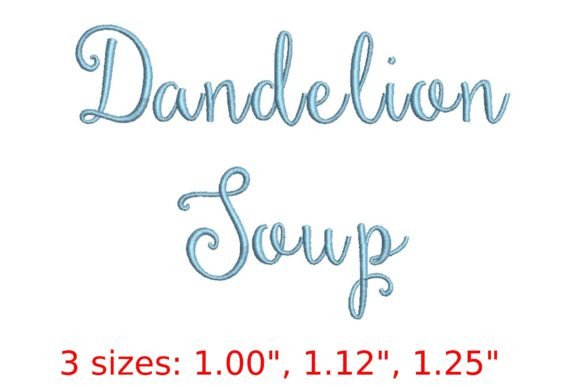
Dandelion Soup Embroidery Font
The Dandelion Soup Embroidery Font is a beautiful and versatile machine embroidery font designed to inspire creativity in your stitching projects. Inspired by the comforting and nourishing qualities of dandelion soup, this font brings a unique blend of elegance and charm to your embroidery work. Whether you're a seasoned embroiderer or just starting out, this font offers a fresh and artistic way to express yourself through needle and thread.
A Unique Blend of Beauty and Nourishment
Each letterform in the Dandelion Script embroidery font is crafted with care, featuring graceful and flowing lines that evoke the softness of dandelion petals. This design not only adds visual appeal but also carries a sense of warmth and comfort, much like the gentle flavor of dandelion soup. The font's whimsical style makes it perfect for adding a touch of personality to your projects, whether they are personal keepsakes or commercial designs.
Seamless Integration with Popular Machines
Where Can You Use This Font?
This font is incredibly versatile and can be used in a wide range of contexts. From personal projects like custom towels, aprons, and pillowcases to professional applications such as branding materials and promotional items, the Dandelion Script font has something to offer everyone. It's ideal for creating personalized gifts, adding a special touch to home decor, or even crafting meaningful messages for events and celebrations.
- Personal Projects: Use it to create custom textiles like napkins, table runners, and decorative pillows.
- Commercial Use: Incorporate it into branding efforts for small businesses, cafes, and boutiques.
- Event Decor: Add a unique flair to wedding favors, party invitations, and event signage.
- Artistic Expression: Explore new creative avenues by combining the font with other design elements.
Beginner-Friendly Examples
If you're new to embroidery, the Dandelion Soup Embroidery Font is an excellent choice. Its clean and flowing design makes it easy to stitch, even for those with limited experience. Try using it to create simple quotes or names on fabric, or experiment with different sizes and placements to see how it looks in various settings. With a little practice, you'll be able to craft stunning pieces that reflect your unique style.
Important Considerations Before Using the Font
It's also important to consider the intended use of your project. While the font is designed for a wide range of applications, certain uses may require more intricate detailing or larger formats. Always test your designs on scrap fabric before committing to final pieces to avoid any unexpected results.
Why Choose Dandelion Soup Embroidery Font?
There are several reasons why the Dandelion Soup Embroidery Font stands out among other embroidery fonts. Its aesthetic appeal, combined with its practicality, makes it a valuable addition to any embroiderer's toolkit. The font's ability to convey both beauty and meaning allows for greater creative freedom, enabling you to express your ideas in a visually compelling way.
Moreover, the font's versatility means that it can adapt to various styles and themes, making it suitable for both casual and professional use. Whether you're looking to add a personal touch to your home or create branded merchandise, this font provides the flexibility needed to meet your goals.
Conclusion
In conclusion, the Dandelion Soup Embroidery Font is more than just a design—it's an invitation to explore the intersection of art and function. With its elegant script and user-friendly features, it empowers creators of all levels to bring their visions to life. By choosing this font, you're not only enhancing your embroidery projects but also infusing them with the warmth and charm of dandelion soup itself.